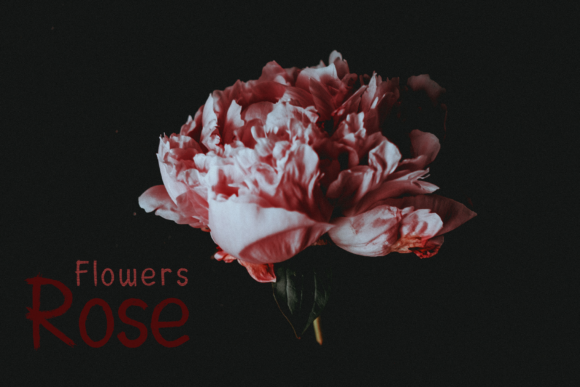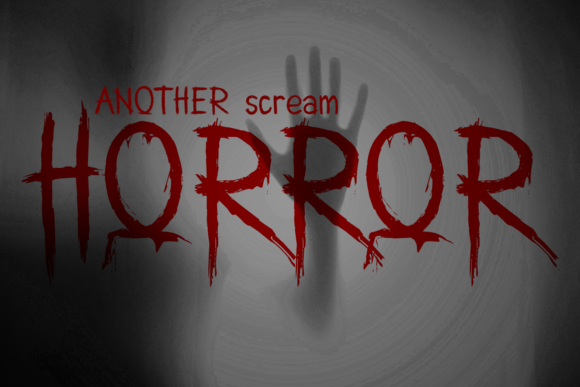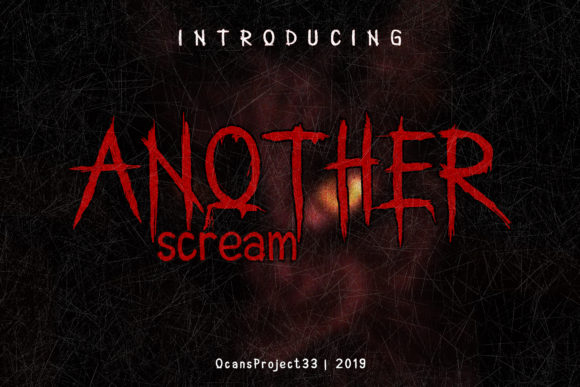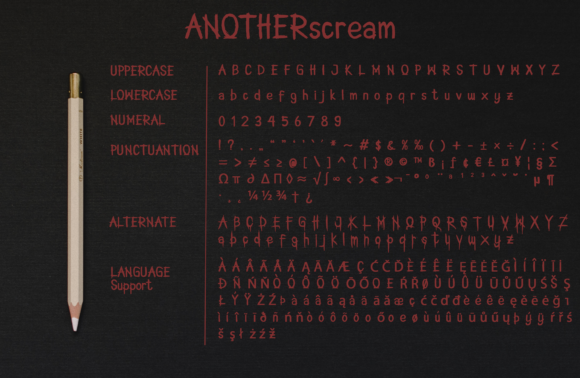
Another Scream Font
The Another Scream is an amazing typography made by scribbling using a pen.
It’s suitable for movie titles, posters, logos, quotes, t-shirts, labels, posters, and more